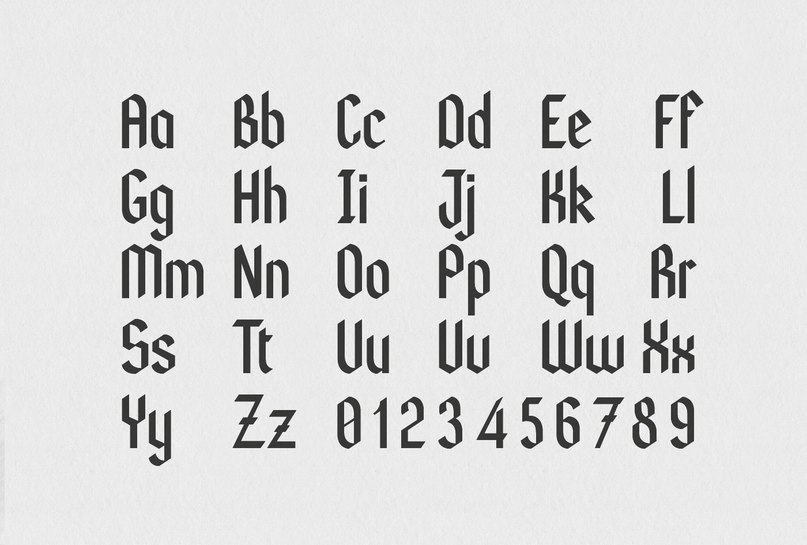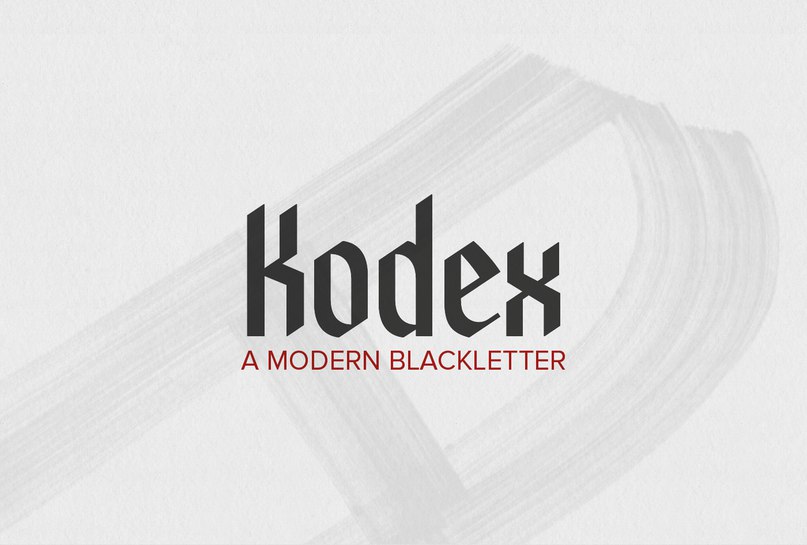
Kodex Font
Kodex Font is quite famous for its text generation function. This is highly utilized in logo designing and it is also present inside Microsoft word. This exceptional font has made significantly in a top-notch type keeping an OpenType define the form. That could be a glamour this is much like the hammer font.
So, due to this feature, you could use this font for a large marketplace. This font is finished in replica and pastes competencies. This typeface is likewise of droping font quite rated within the google fonts.